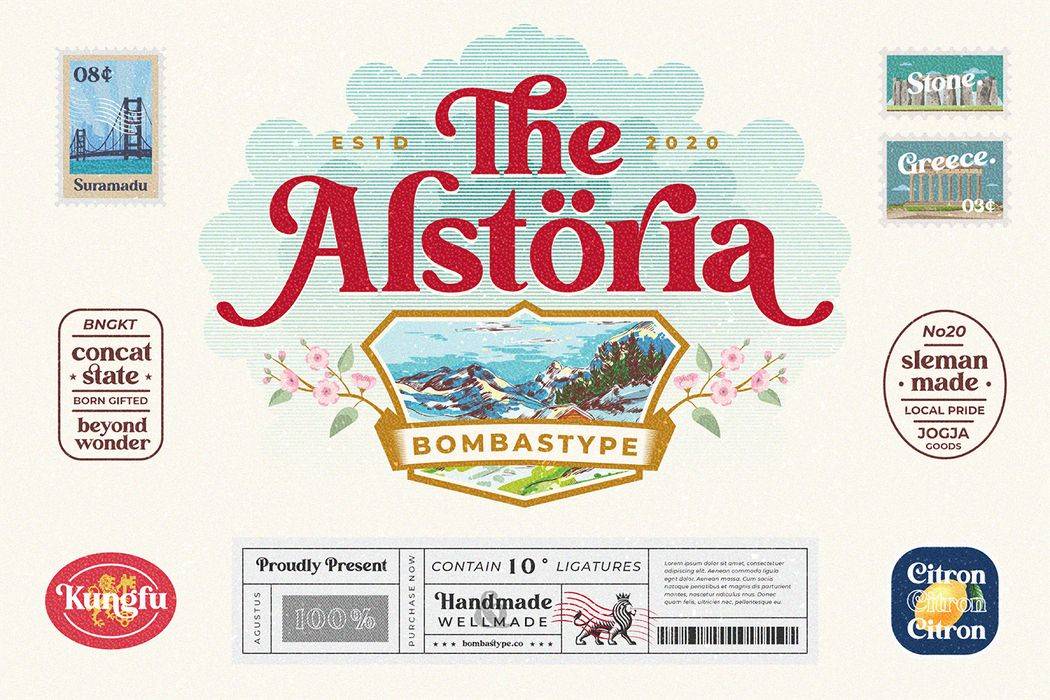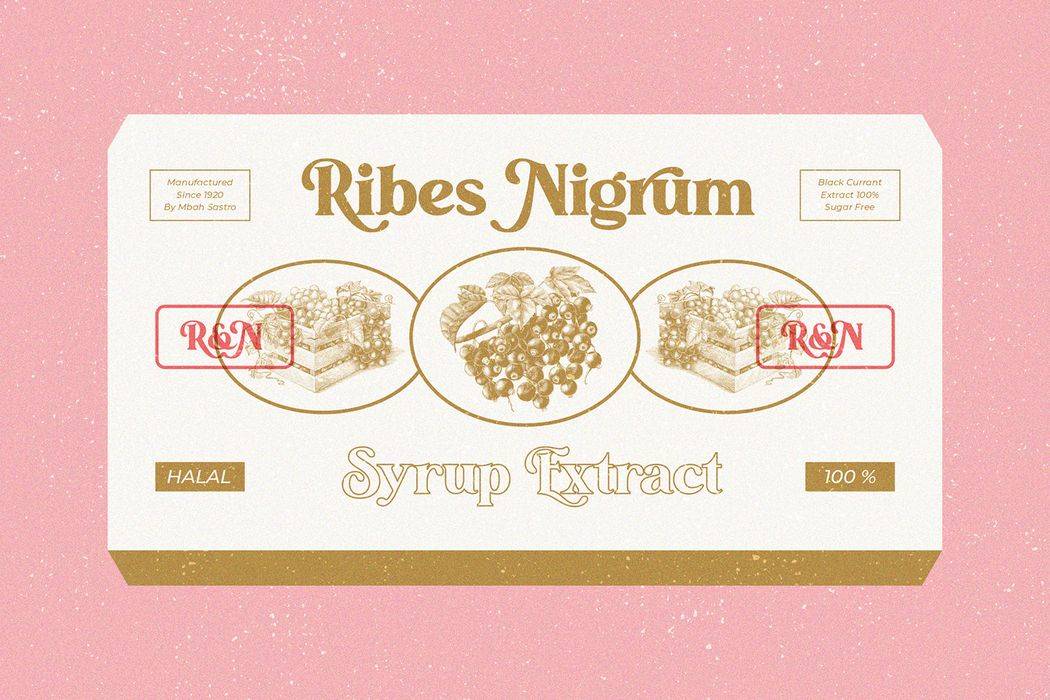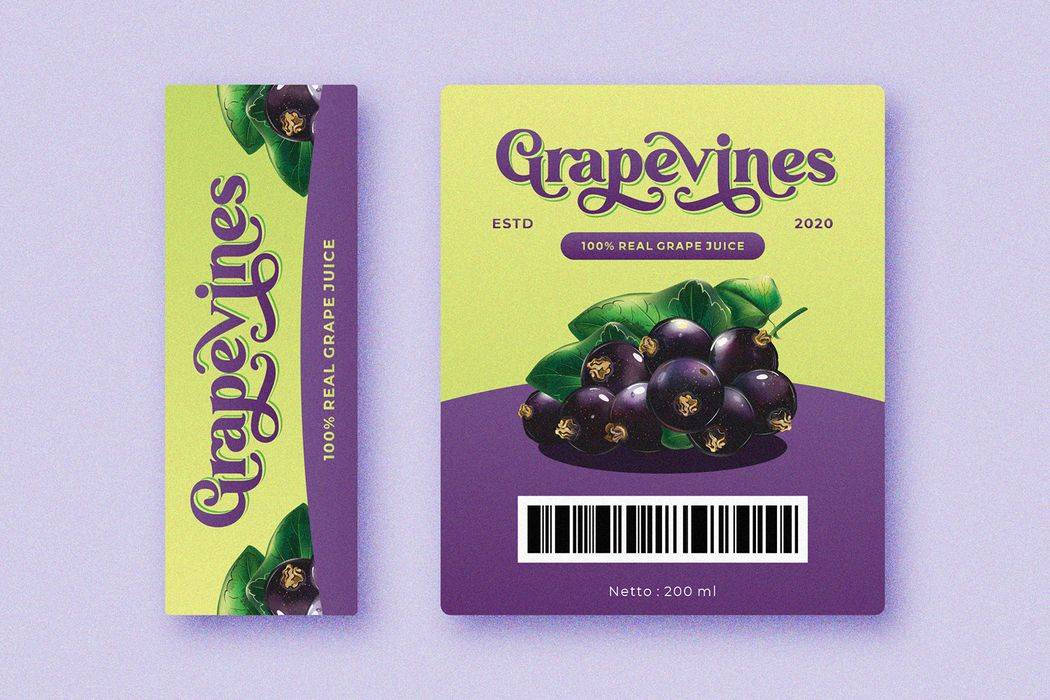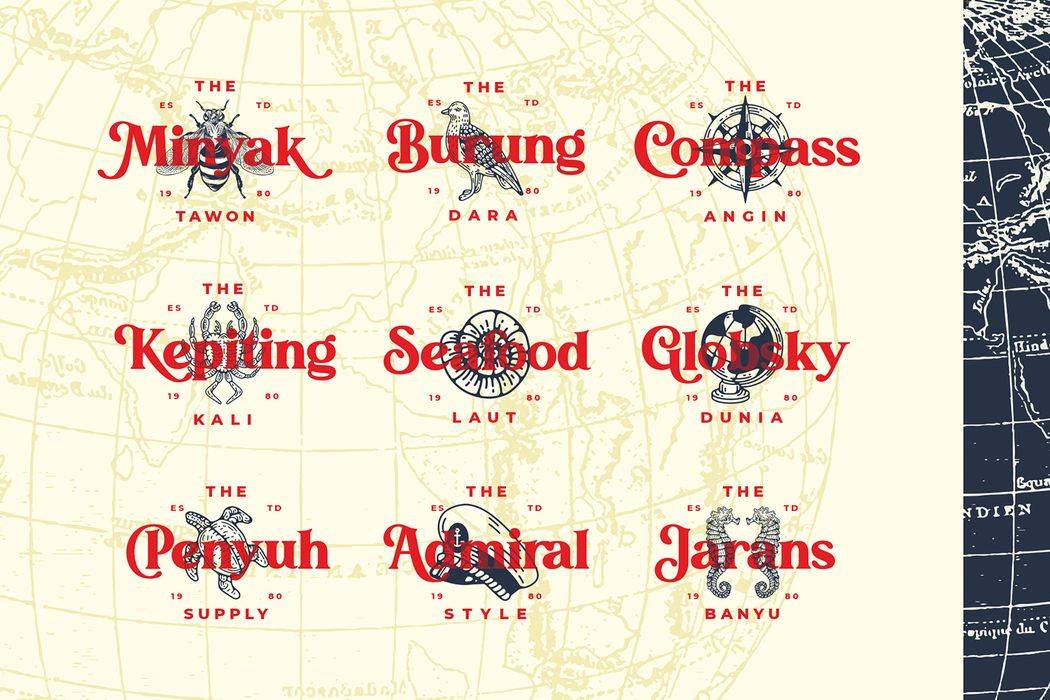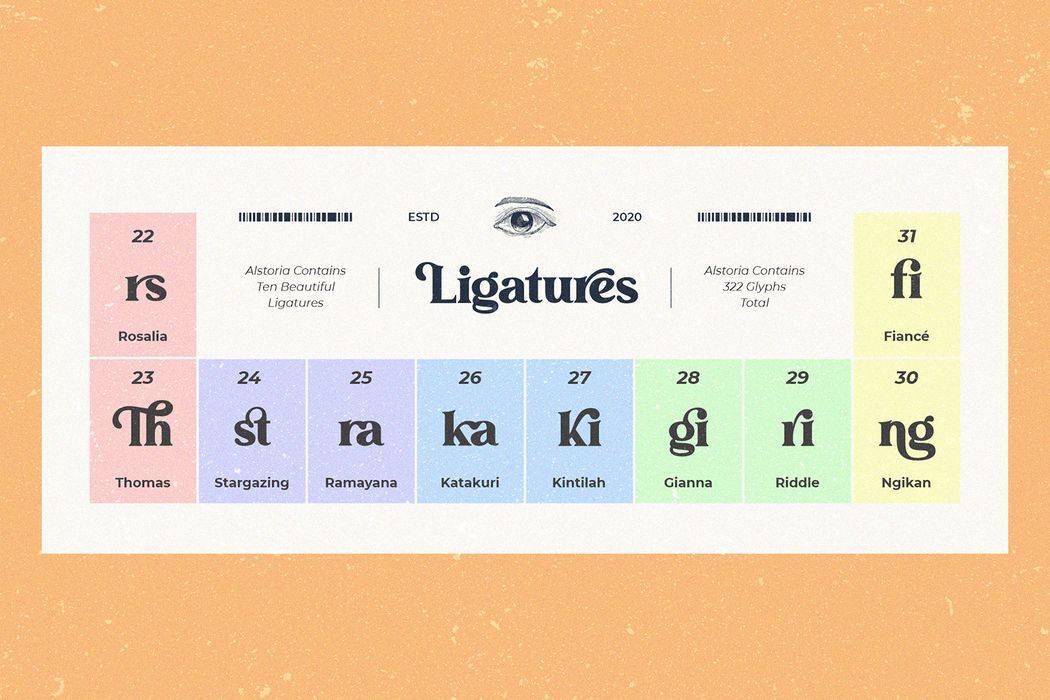
Alstoria is a bold serif font with strong contrast and distinctive bracketed serifs that give it a classic yet playful character. Its elegant letterforms combine traditional serif features with unique flourishes, making it well suited for eye-catching headlines, logos, and branding that require a touch of sophistication and personality. This font works beautifully in editorial and packaging design, where its charm and bold presence can truly stand out.
Alstoria Font
About Alstoria Font
| Font family | Alstoria Font |
| Designer | Bangkit Tri Setiadi & Amir Subqi Setiaji |